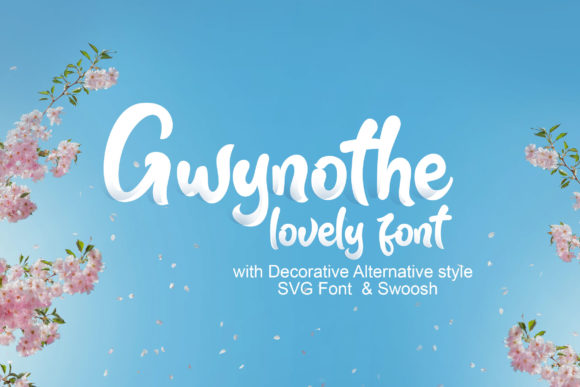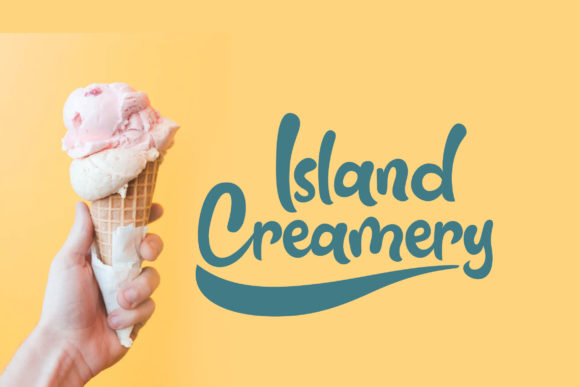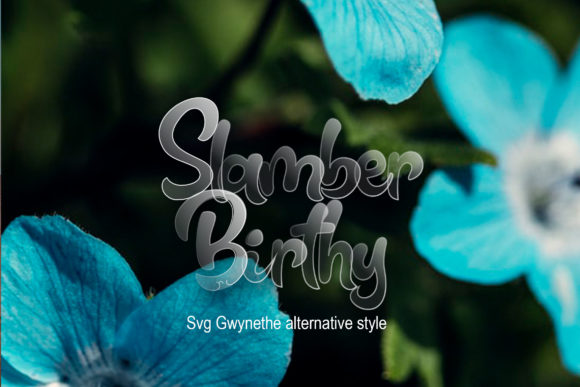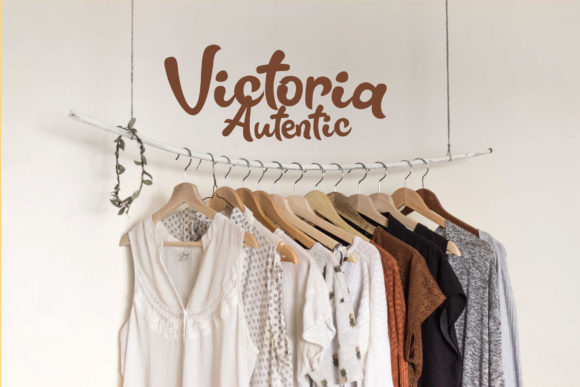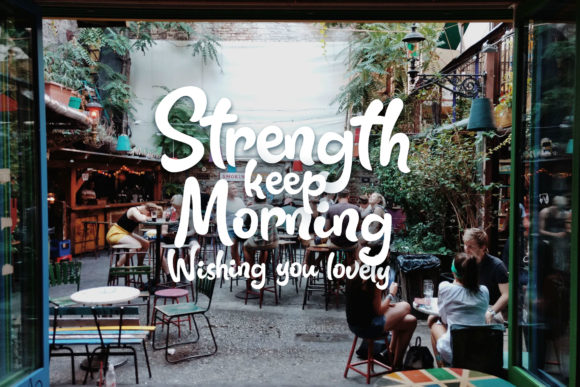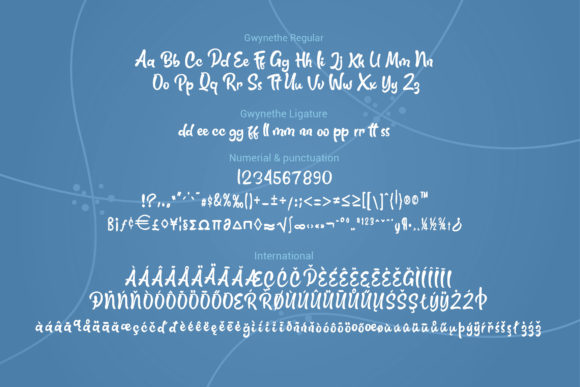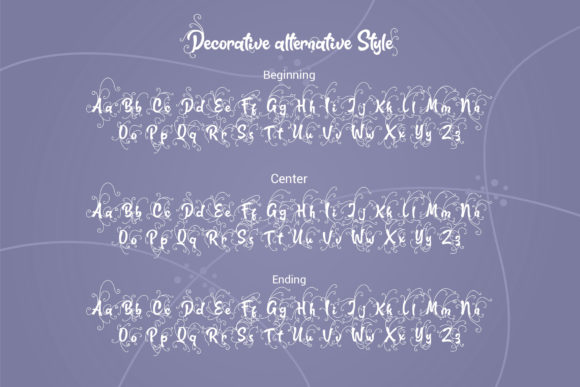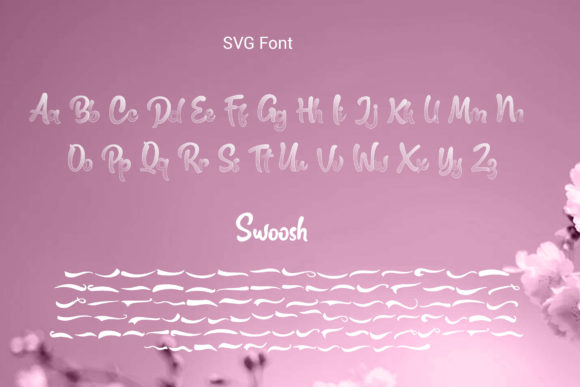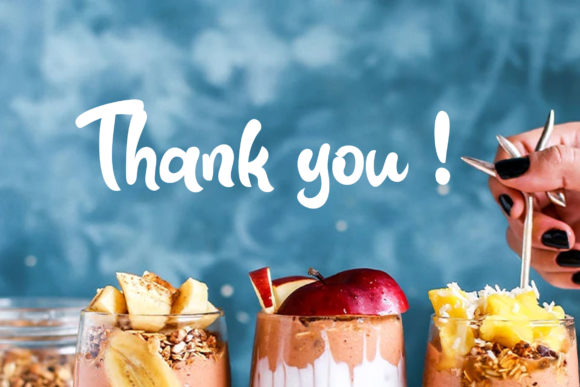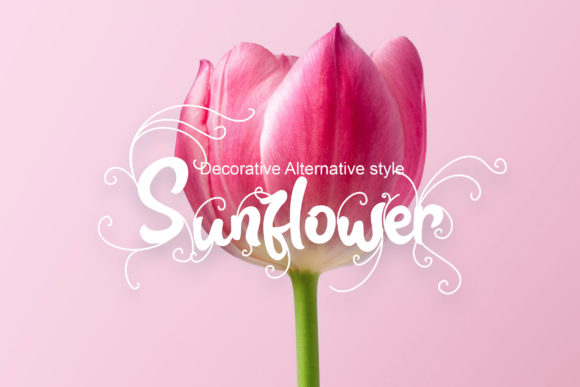
Gwynothe Font
About Gwynothe Font
Gwynothe is a cute and casual handwritten font with an incredibly friendly feel. Whether you’re looking for fonts for Instagram or calligraphy scripts for DIY projects, Gwynothe will turn any creative idea into a true piece of art!